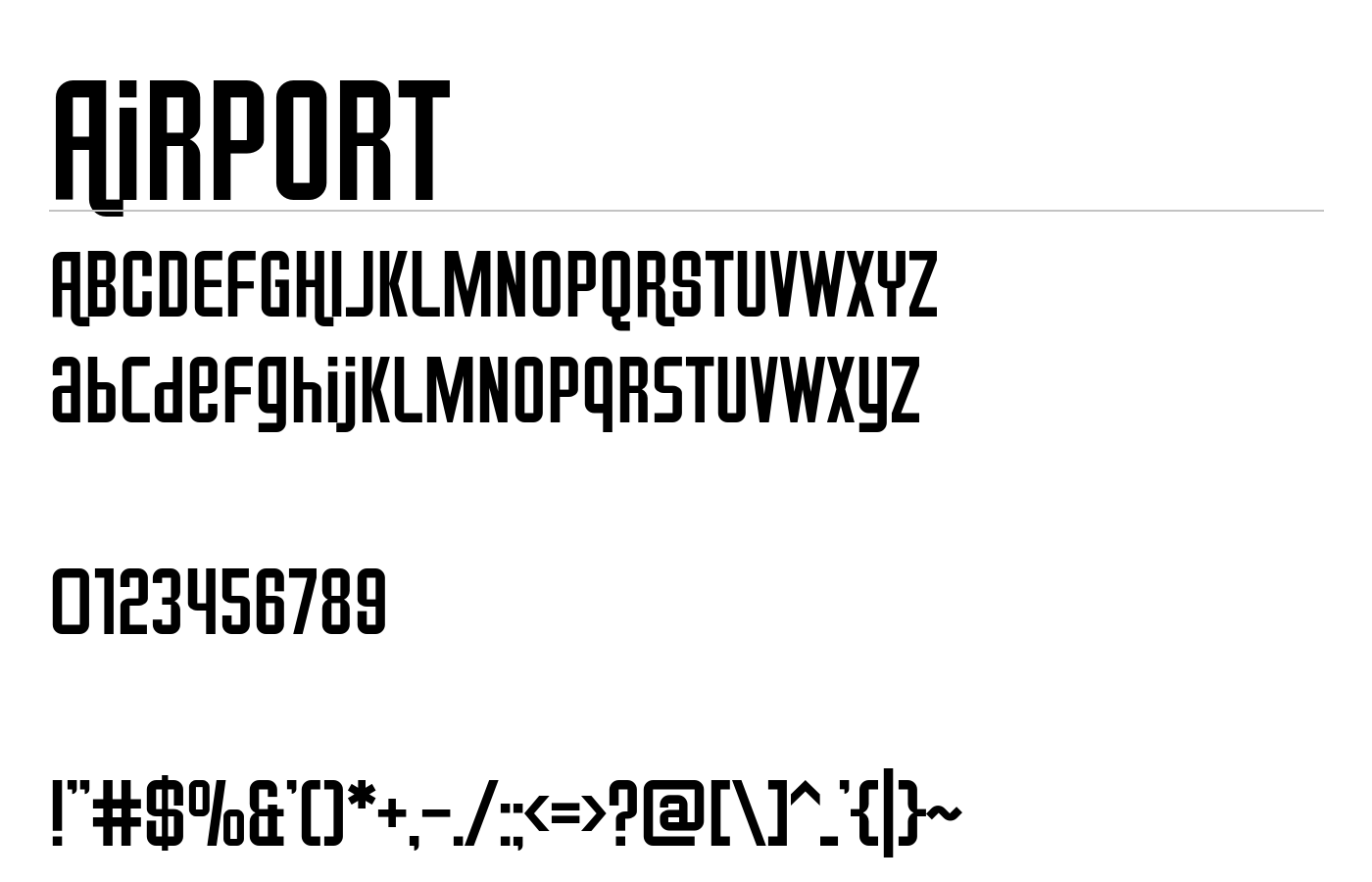
Airport Font is a bold, condensed sans serif typeface with a modern, industrial feel. Its tall, narrow letterforms and consistent stroke weight give it a clean, structured appearance, making it ideal for impactful headlines, signage, and branding that require a strong, technical look. This font works well in contexts where clarity and a contemporary, assertive style are essential, such as transportation, editorial, or futuristic design themes.
Airport Font
About Airport Font
| Font family | Airport Font |
| Designer | Stefan Vanli & Jovanny Lemonad |